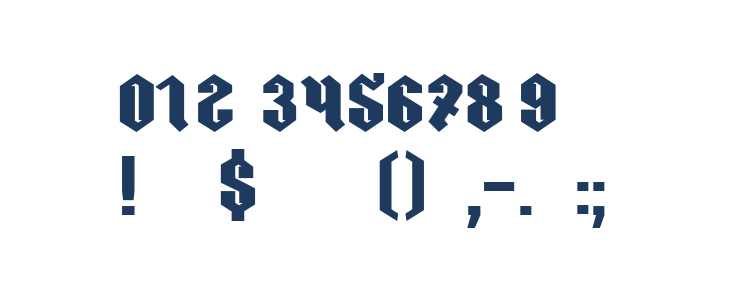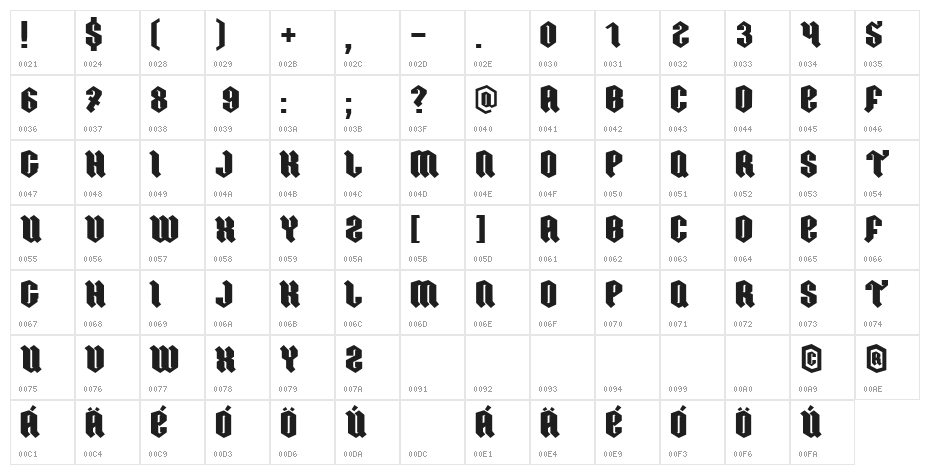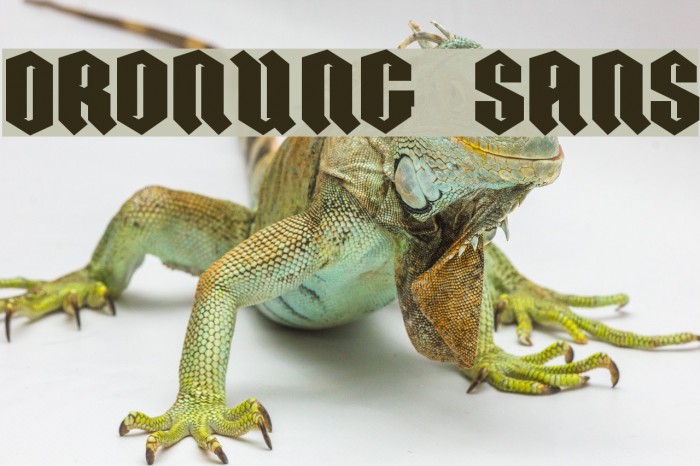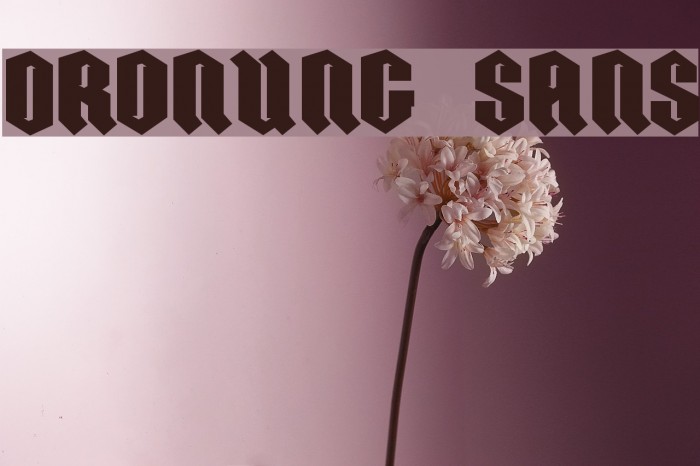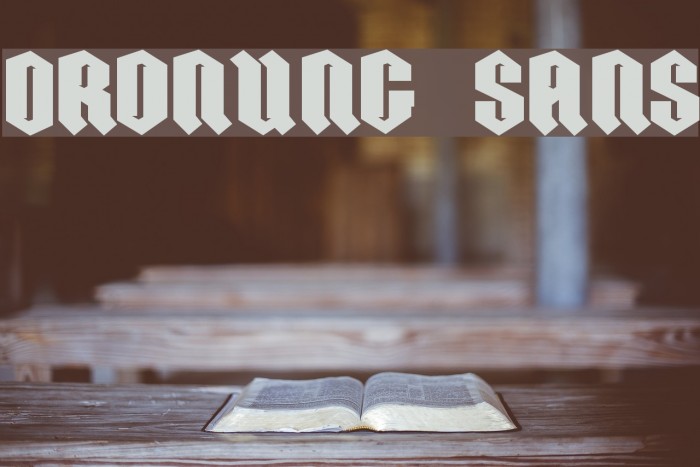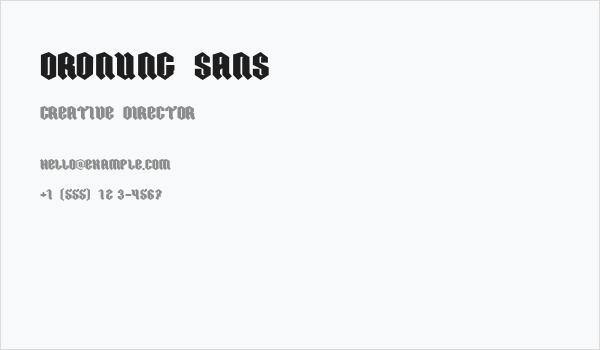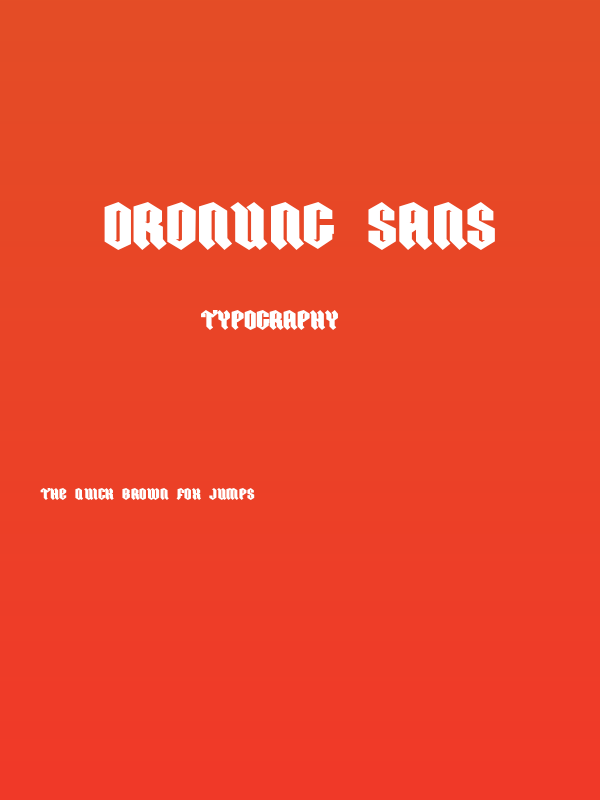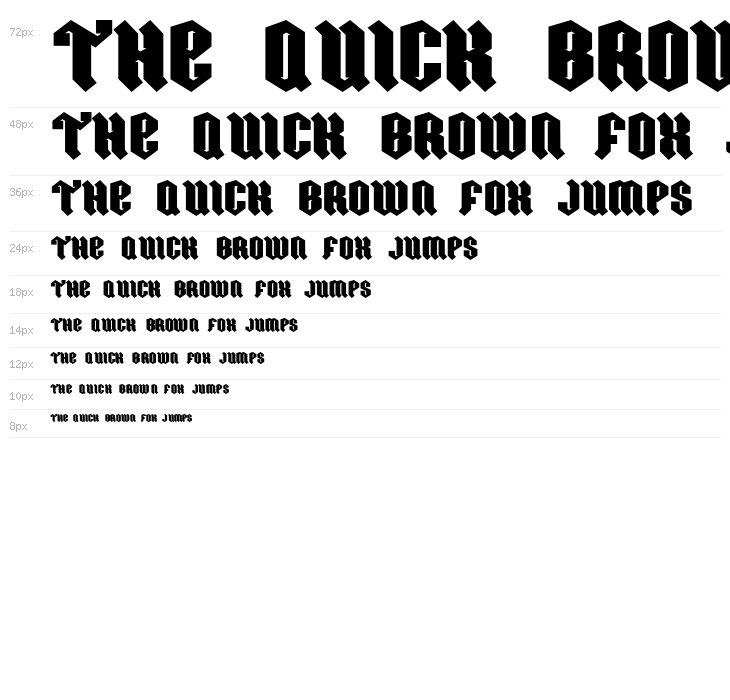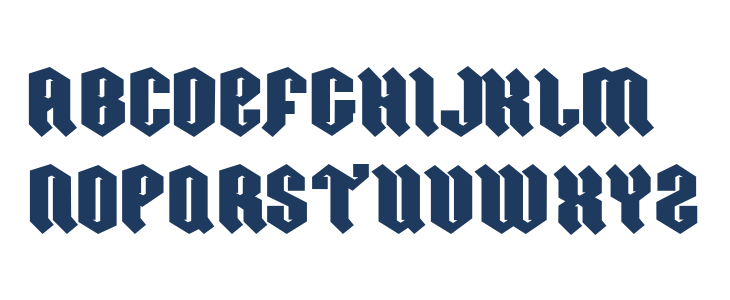
ORDNUNG SANS Font
ORDNUNG SANS Description
This font features a bold and striking design with a strong geometric influence. The characters are sharply angular, with a distinct blackletter style that gives it a historical and authoritative appearance. The uppercase and lowercase letters maintain a consistent weight and structure, creating a cohesive look across the alphabet. The numbers and special characters are designed to match the boldness and angularity of the letters, ensuring uniformity throughout the font. The overall style is reminiscent of traditional Gothic typefaces, yet it maintains a modern edge with its clean lines and precise angles.
| Proposed Projects | Ideal for projects requiring a historical or authoritative feel, such as posters, branding for traditional products, or editorial design. |